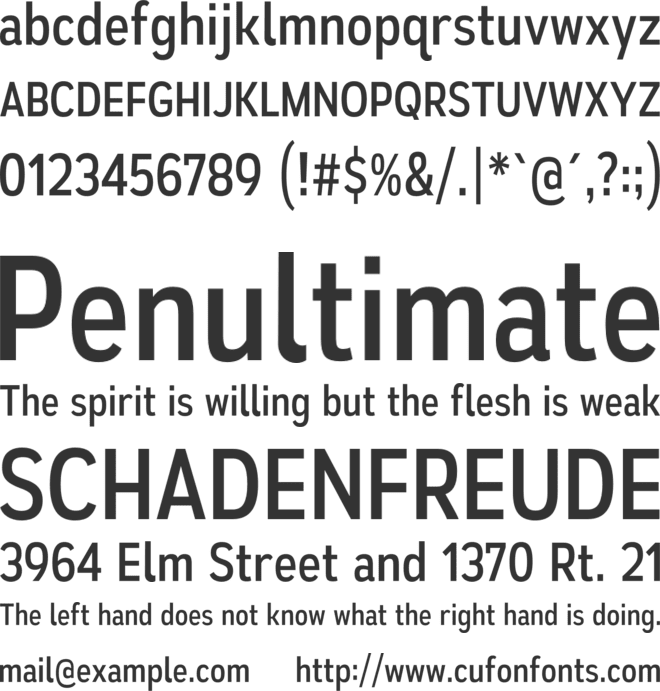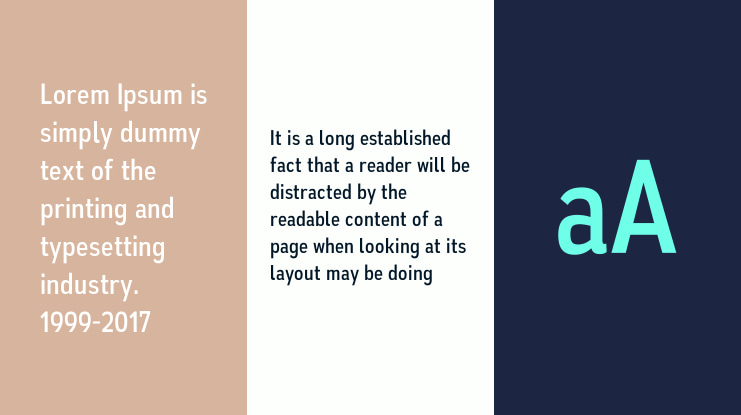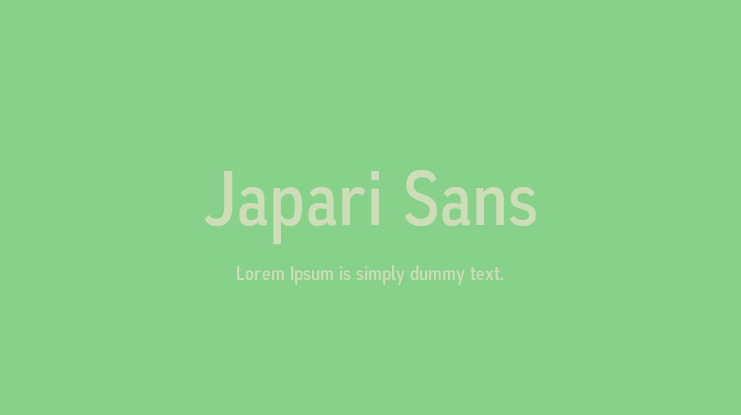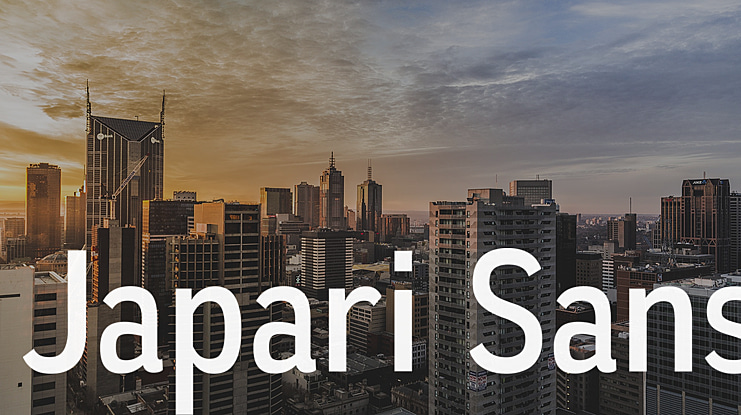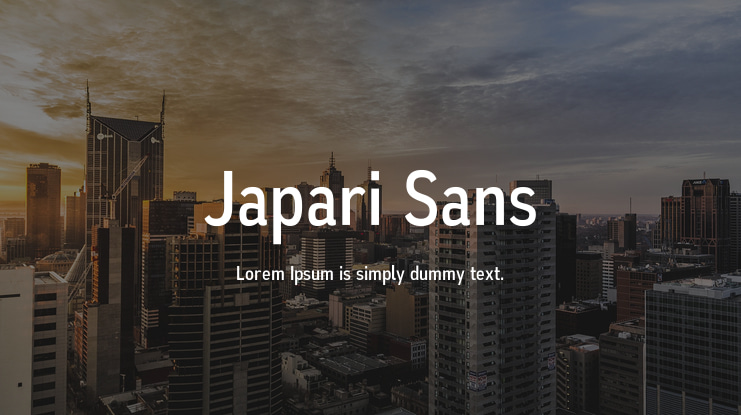
Japari Sans Font
Japari Sans is a new derivative work of the freeware font, Autoradiographic.
Several of the ASCII characters have been redesigned.
Design Modifications by Heaven Castro @ Heaven Castro Studios.